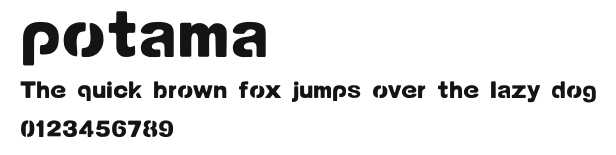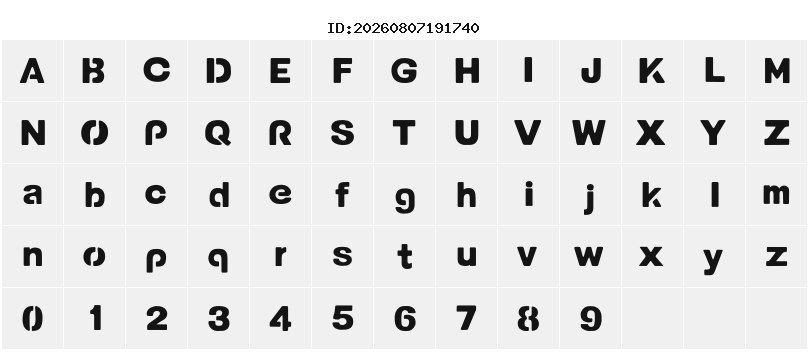
About potama.otf
potama.otf is a modern, elegant sans-serif font designed for ultimate readability and visual harmony. Perfect for branding, headlines, web design, and print materials.